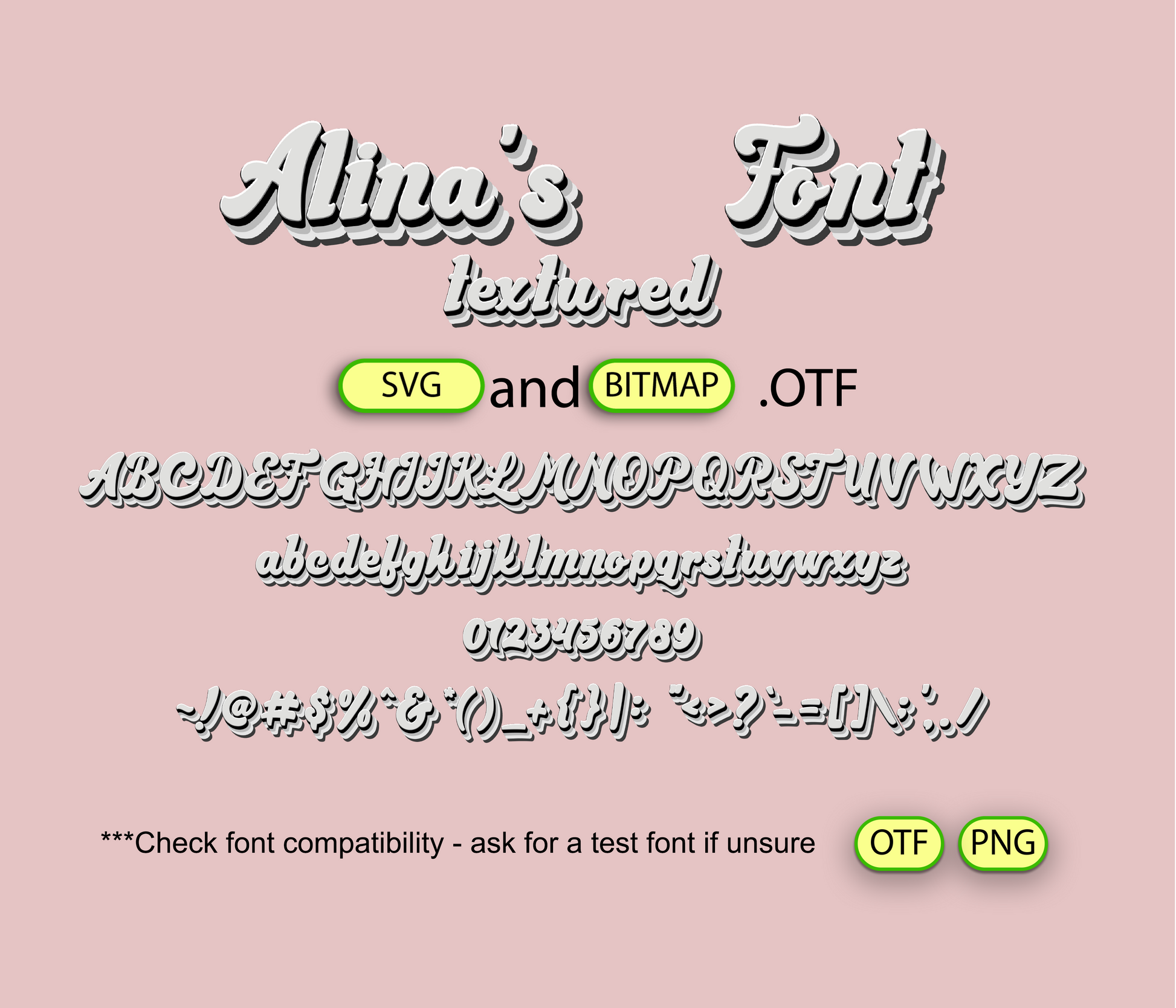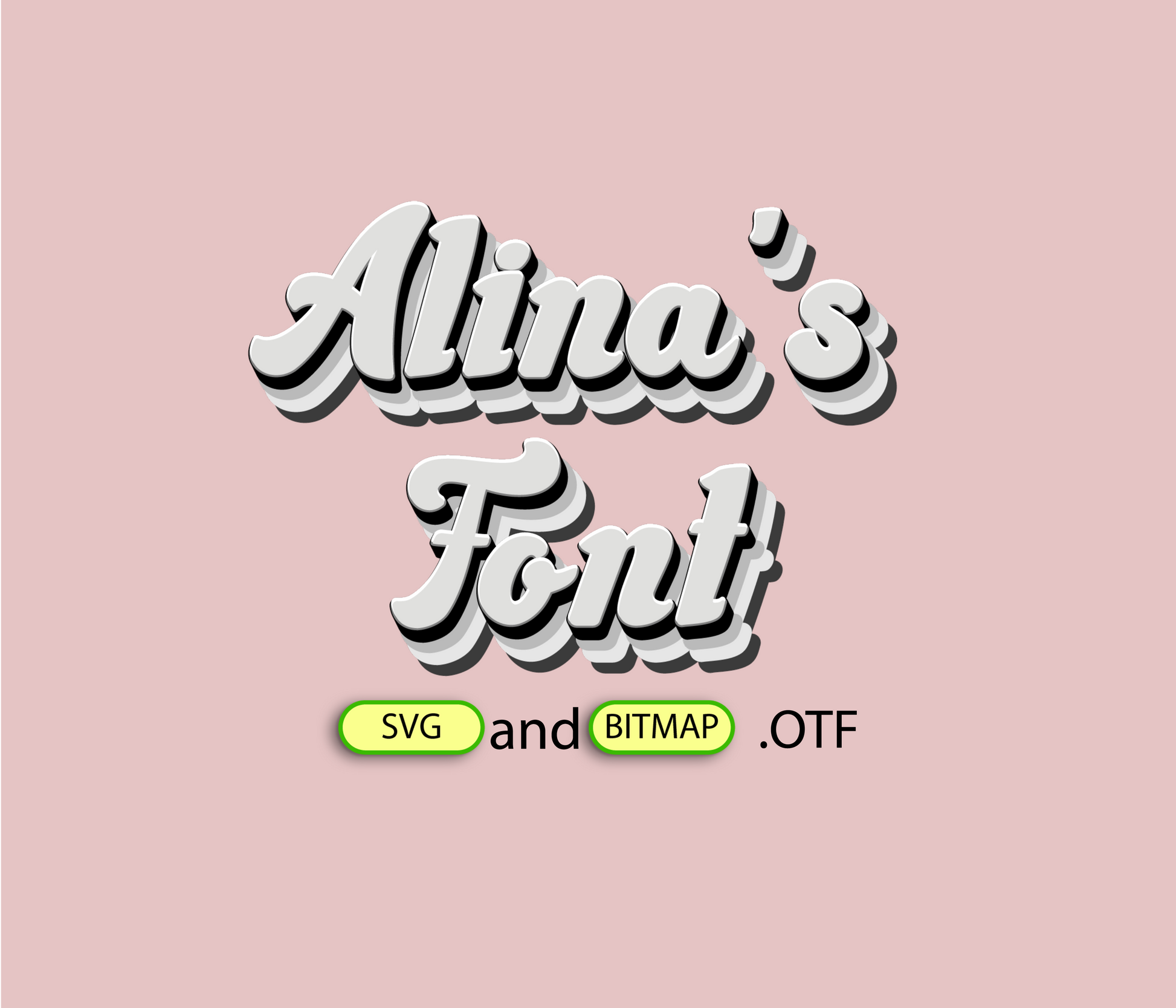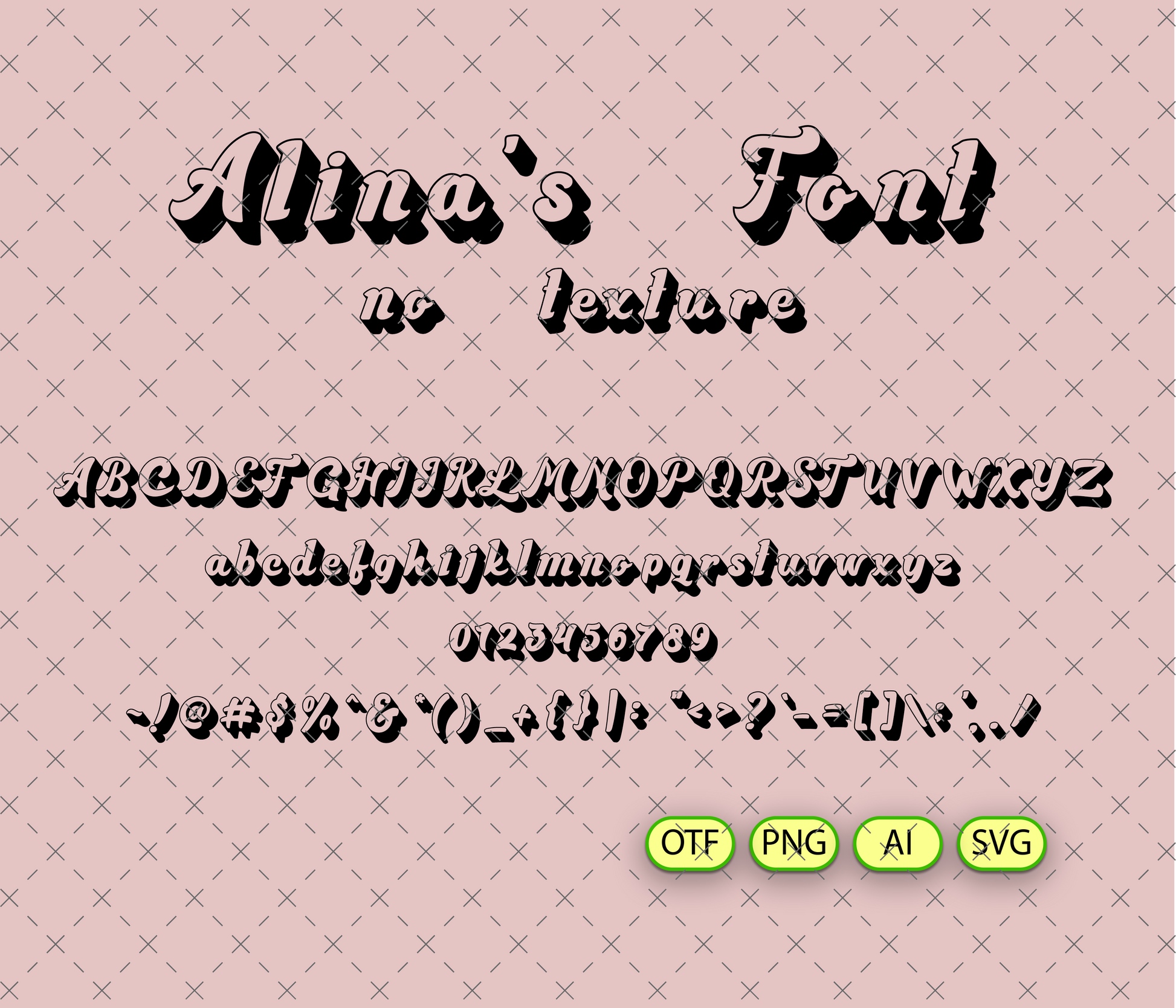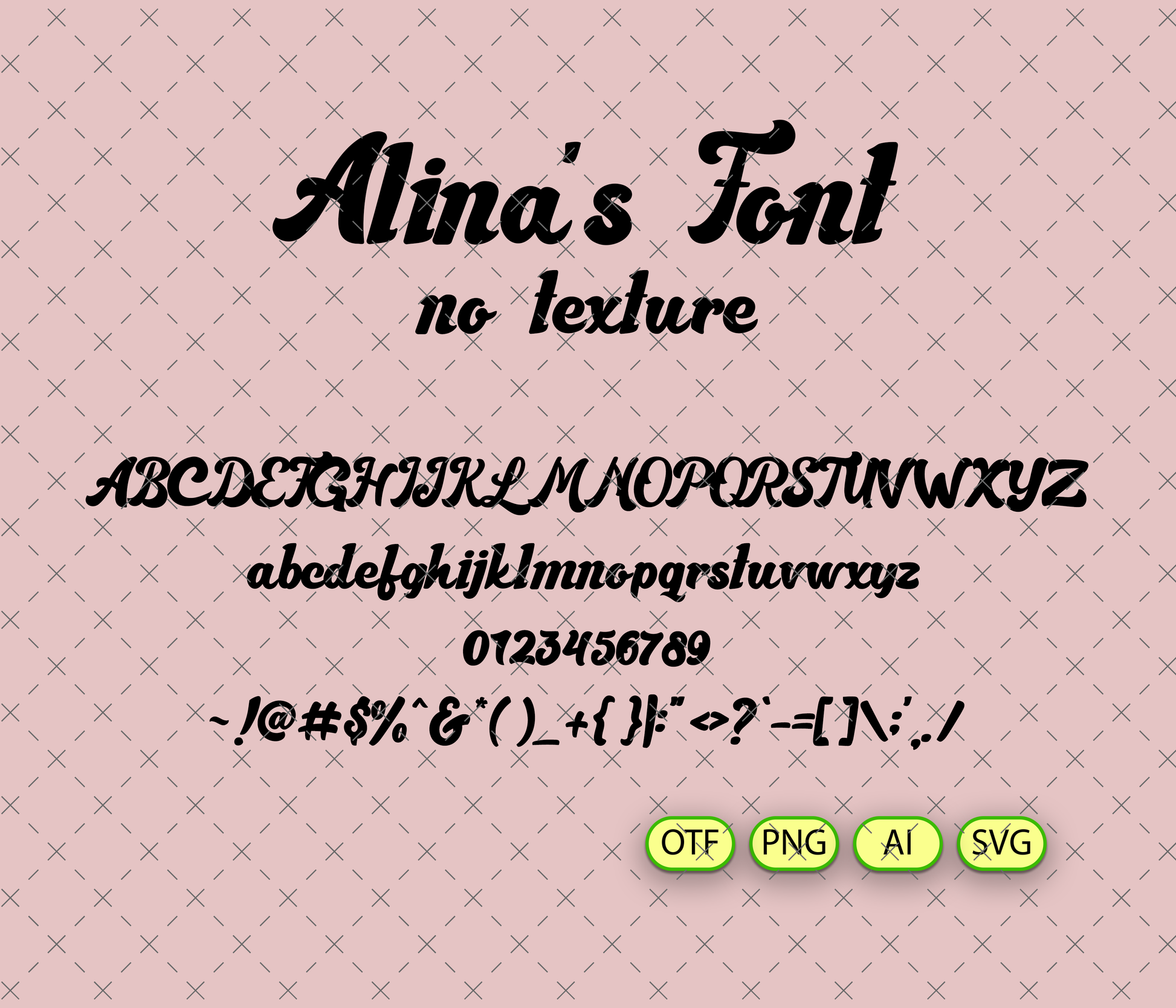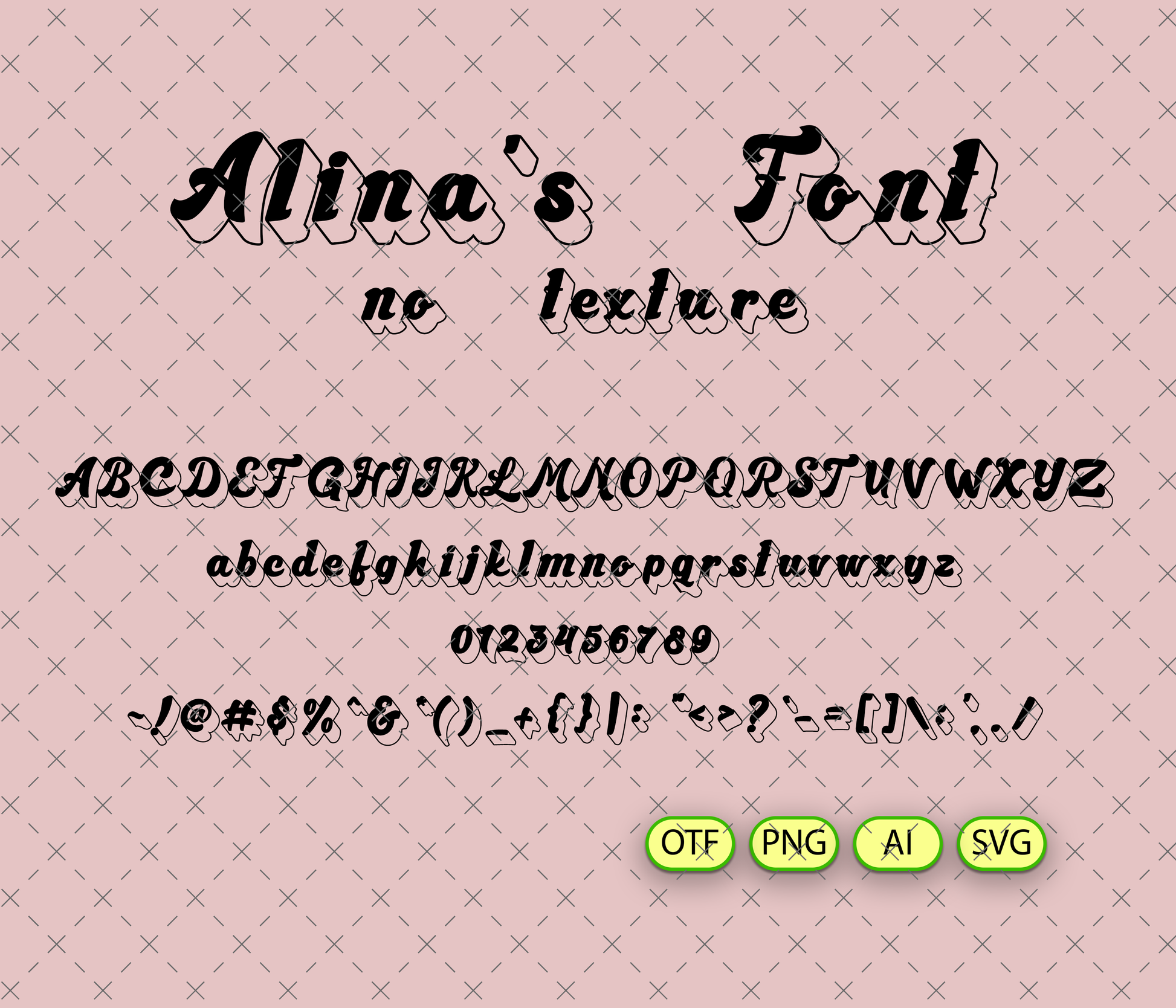
Drive-In Daze Font Textured
Step into the flickering magic of outdoor silver screen nights and cruising seventies car culture with our Drive-In Daze Font Textured, capturing the essence of glowing projection wonder and legendary open-air cinema parking lot narratives. Perfect for vintage cinema enthusiasts, retro car culture event planners, outdoor entertainment media producers, and nostalgic design specialists, this font brings the warm, flickering character of iconic seventies drive-in storytelling to your projects. Create screen-worthy invitations, commercial goods, or web content with the glowing presence of outdoor silver screen culture narratives.
Glowing Typography for Cinema Culture Design & Seventies Drive-In Projects
Our Drive-In Daze Font Textured features warm, cinematically shaped letterforms with flickering silver screen textures reflecting the world of legendary outdoor cinema parking lots and iconic seventies car culture wonder.
Our font pays tribute to the world of outdoor silver screen wonder and generation-spanning seventies drive-in car culture groove, empowering your projects with its warm and flickering cinematic character. Whether crafting cinema-themed materials, designing car culture products, or adding a seventies drive-in touch to personal projects, this font communicates the nostalgic essence of outdoor silver screen magic. Ready to project glowing seventies wonder into your creations? This font is your key to attention-grabbing, impactful design.